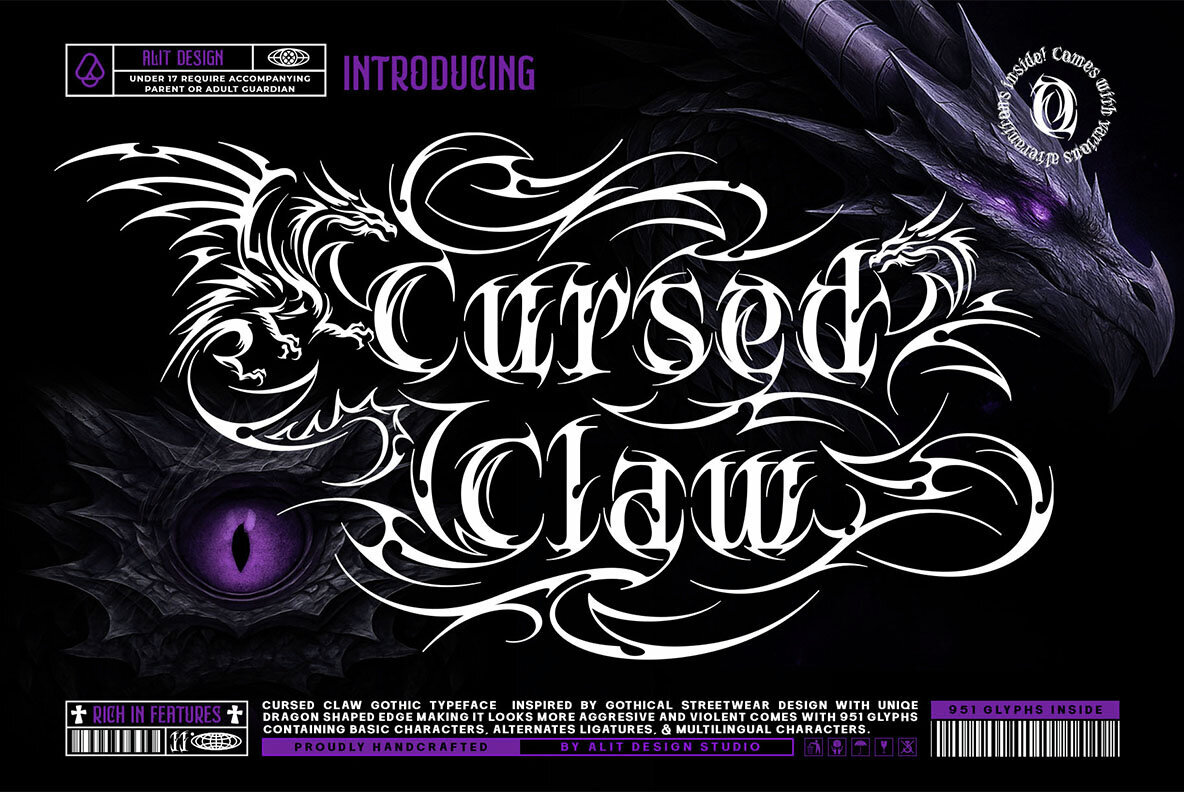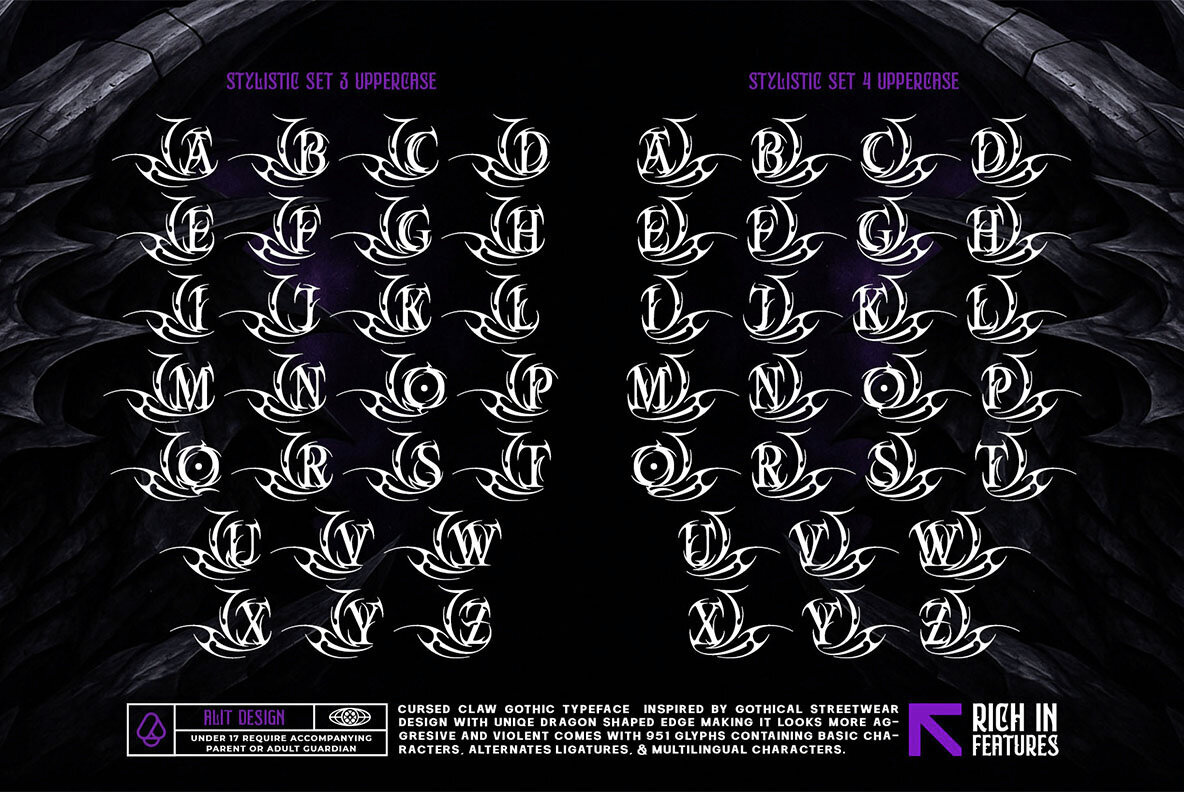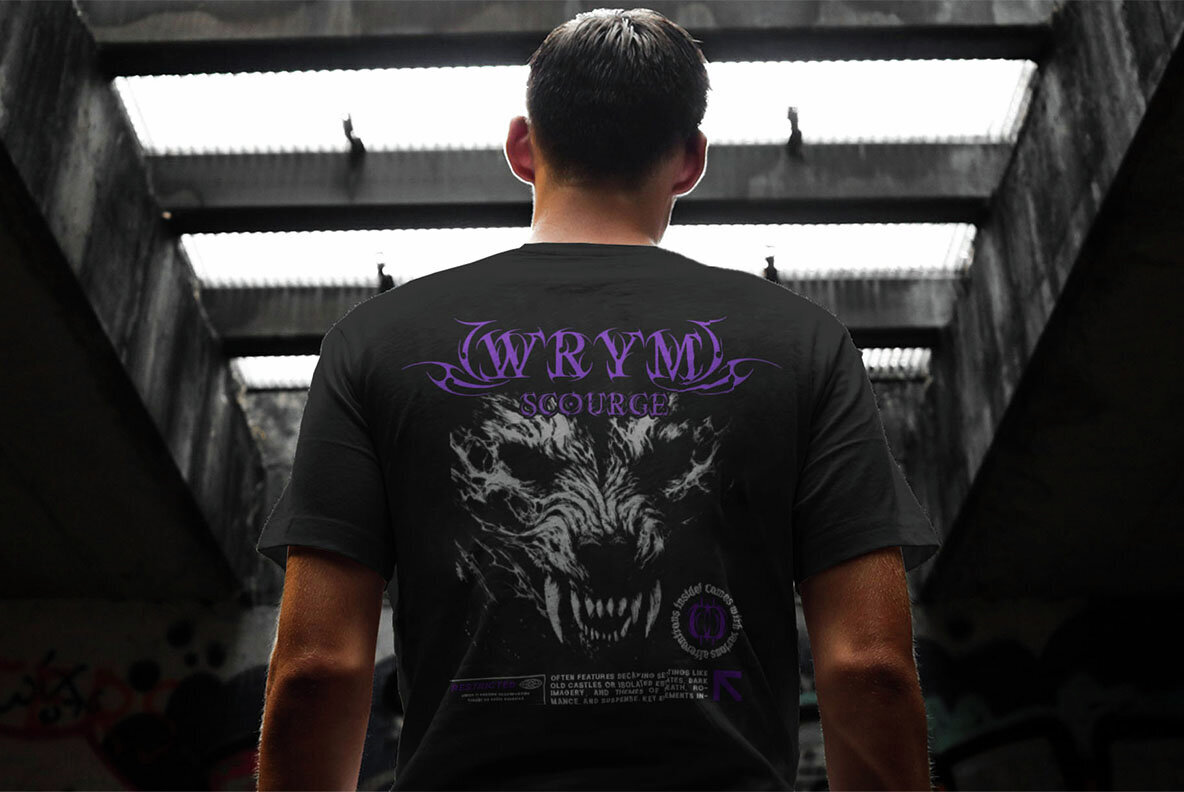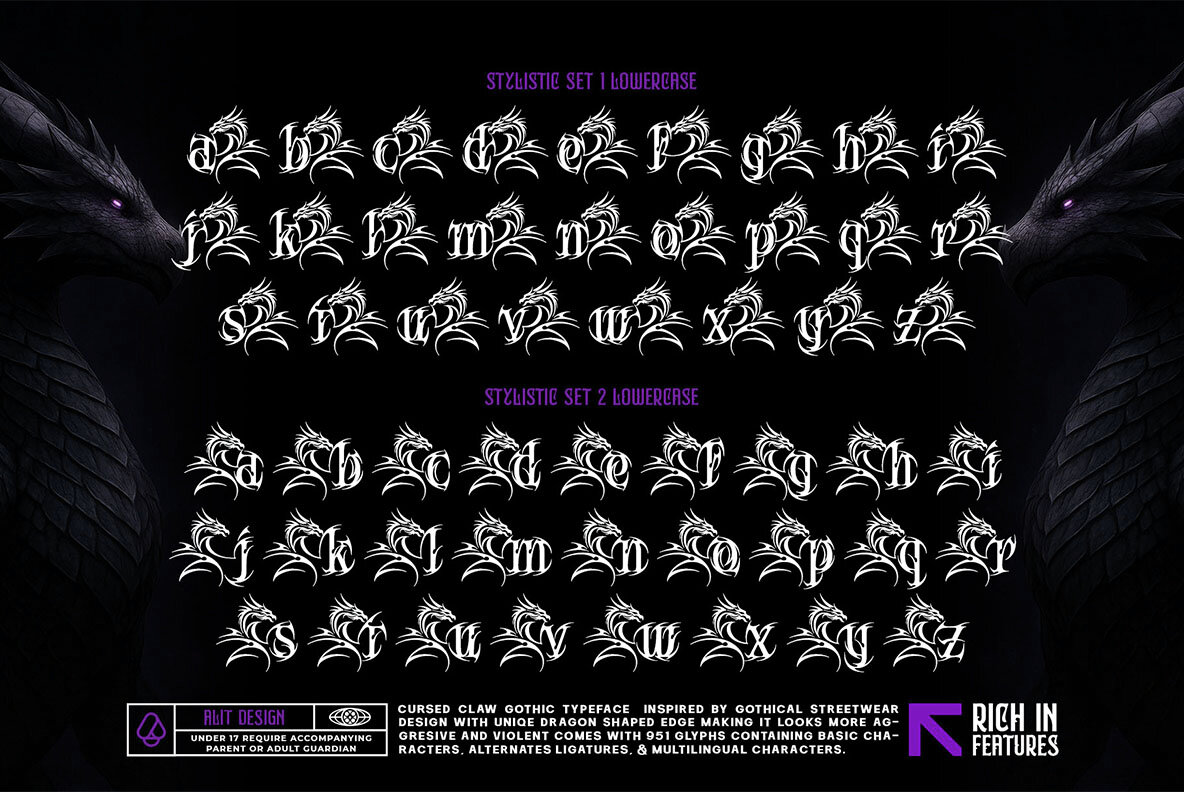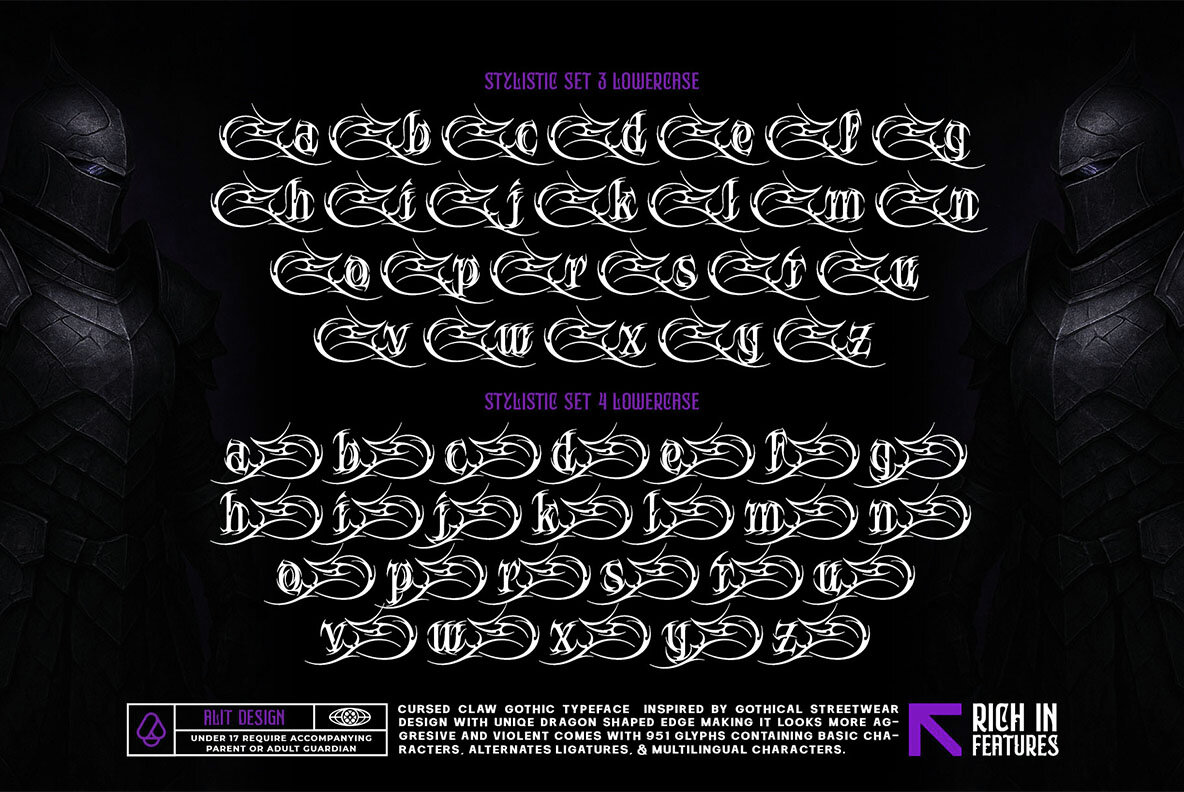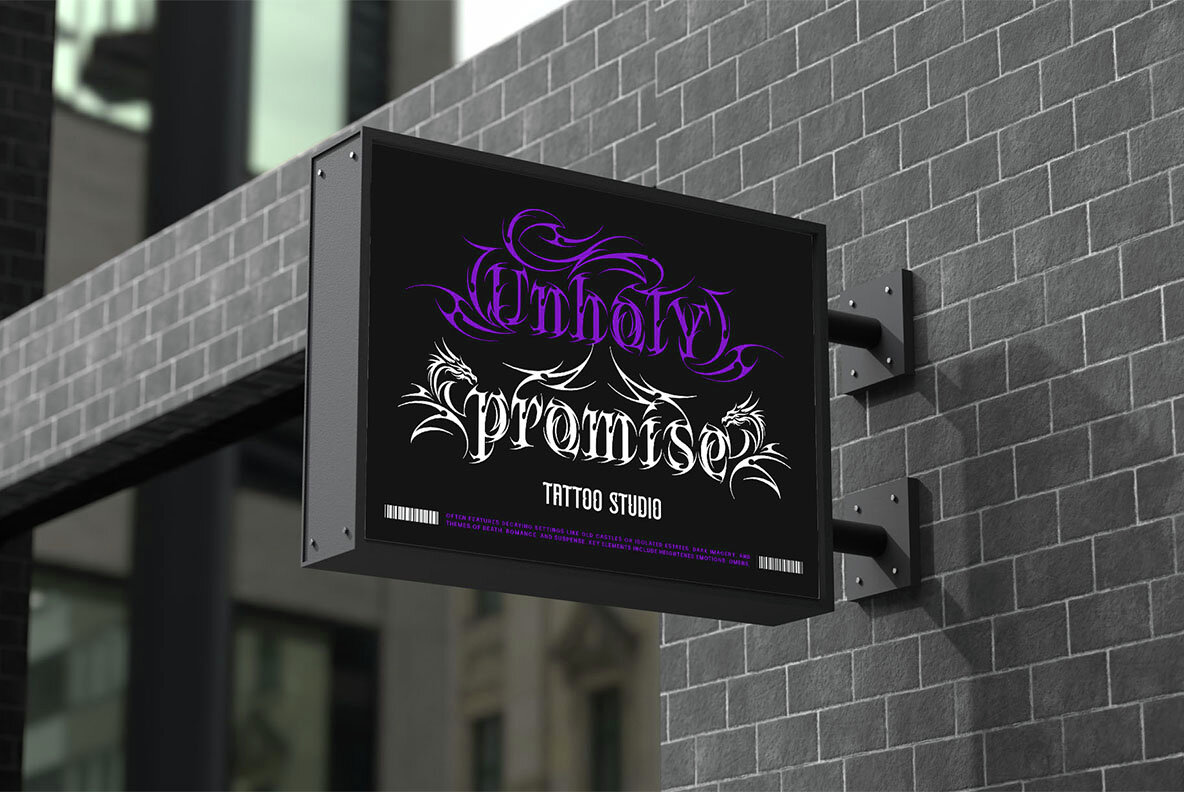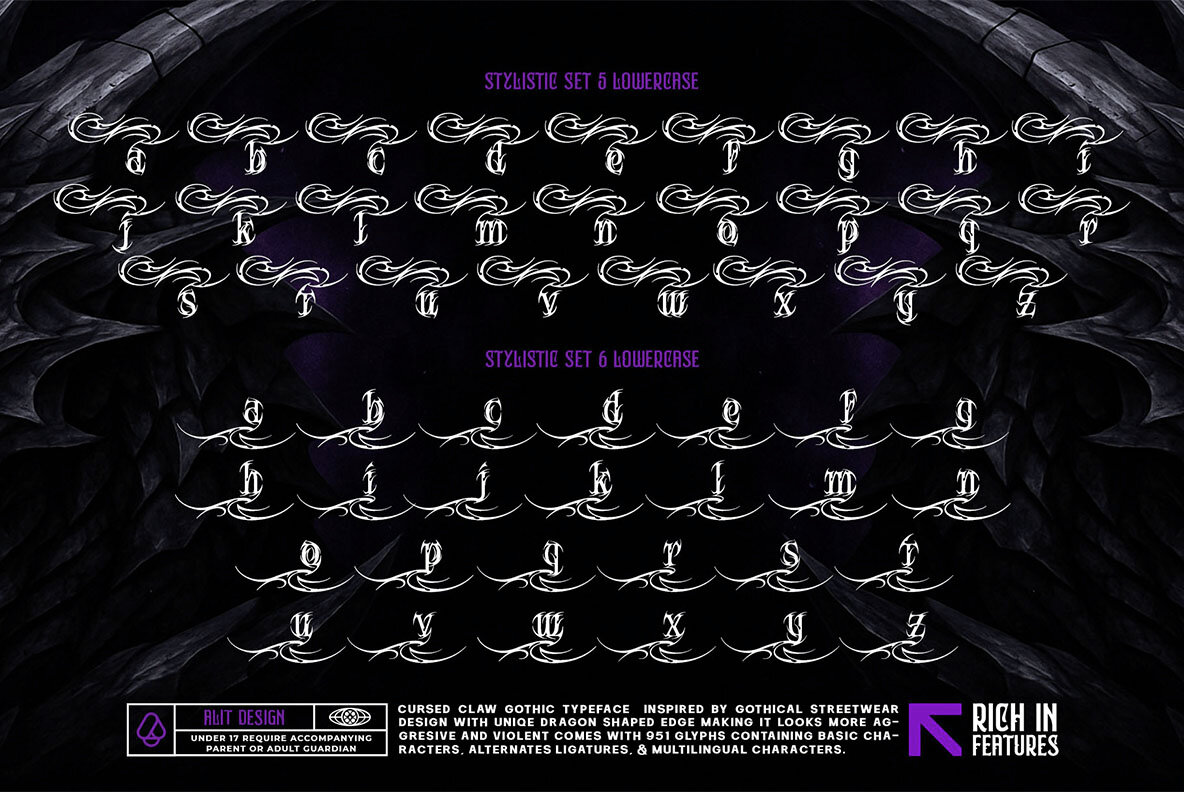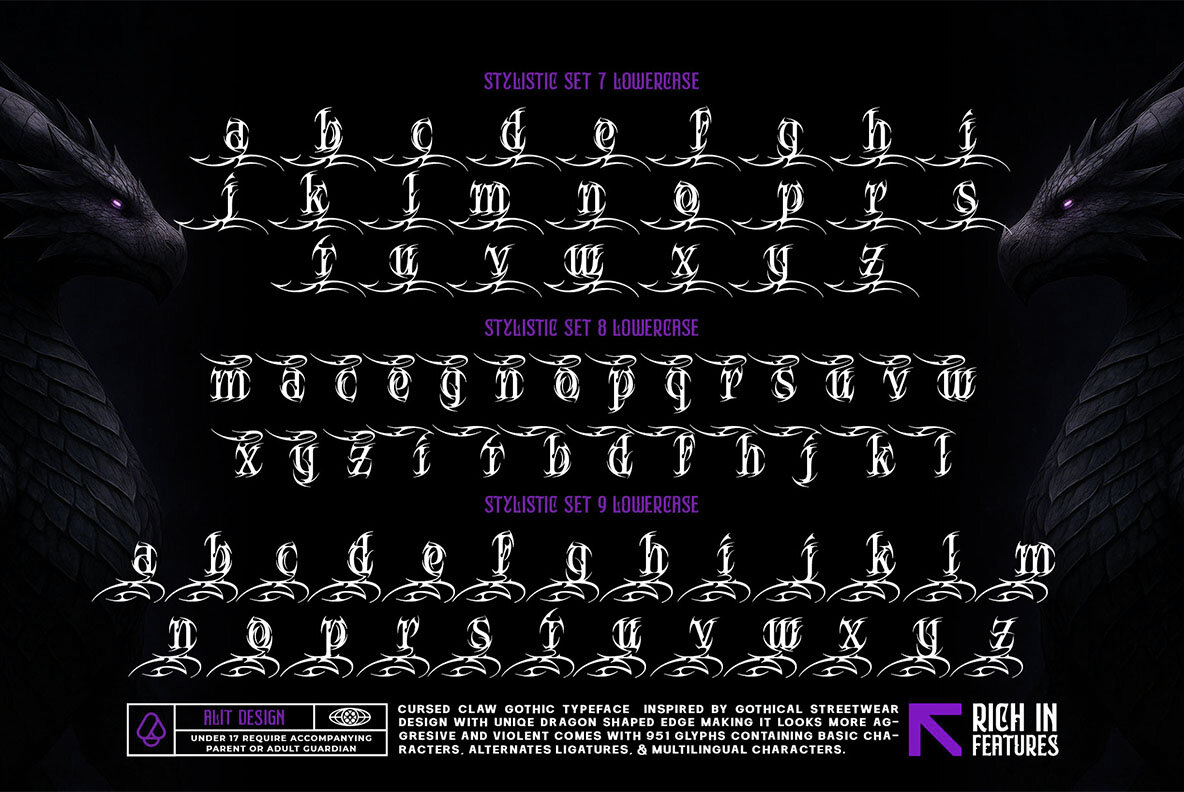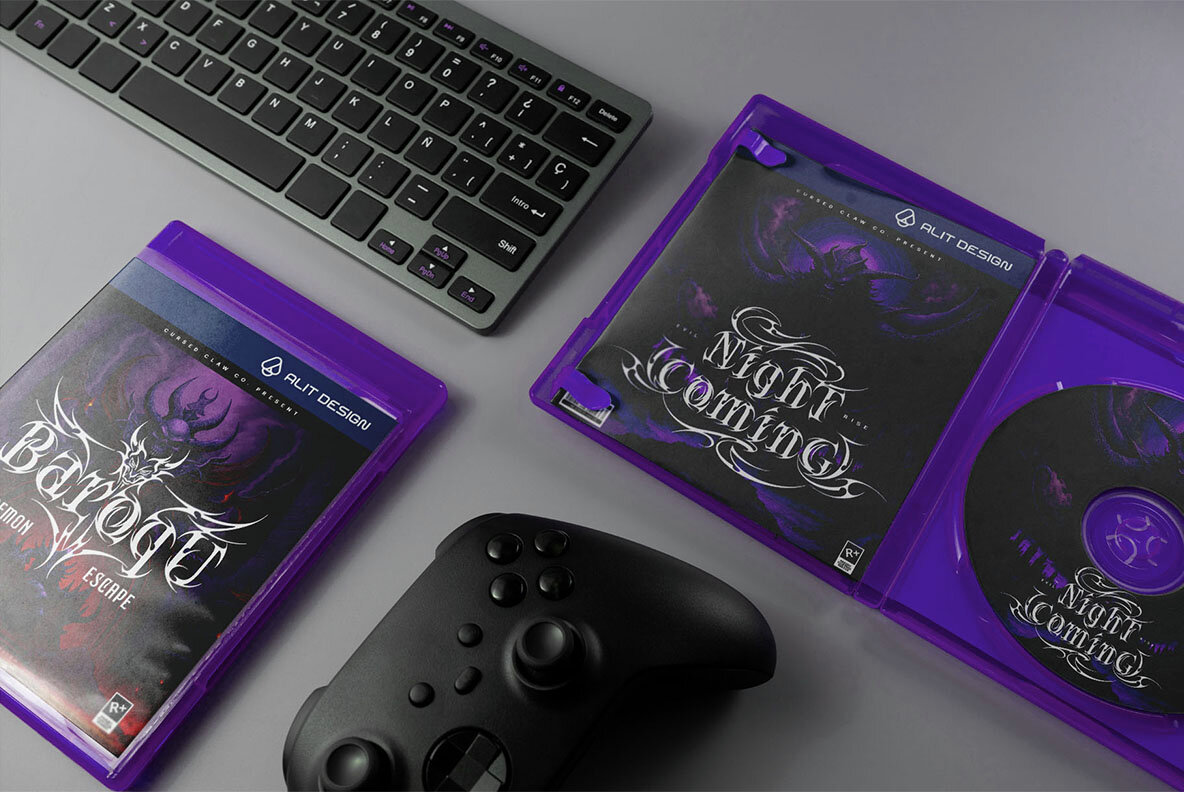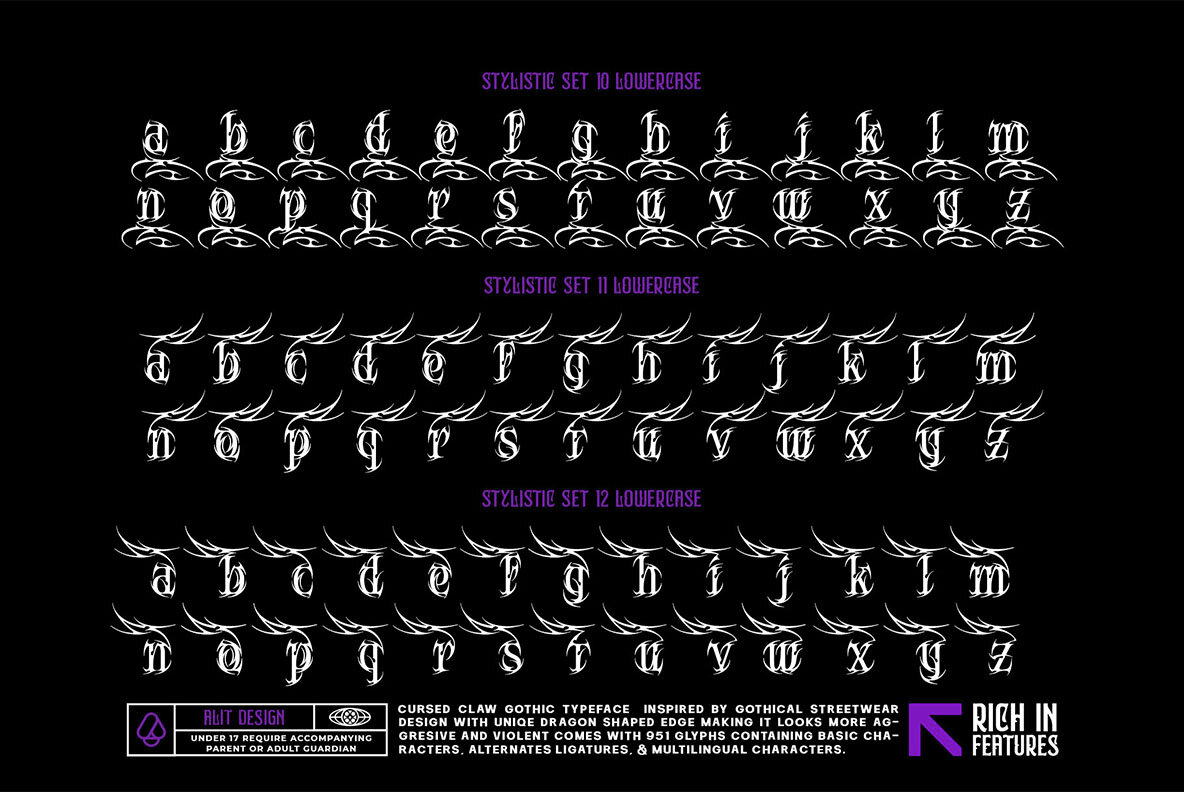
Cursed Claw Font
Cursed Claw Regular
Cursed Claw stands at the intersection of ancient symbolism and contemporary visual culture. This typeface makes a striking impression with its tribal-inspired gothic edge, channeling the intensity of medieval blackletter tradition fused with modern underground influences. Graphic designers seeking bold, character-driven headlines for death metal albums, fantasy branding, or luxury streetwear will find Cursed Claw both evocative and precise. Each glyph is rendered with dramatic, dragon-inspired contours, lending the face a sense of energy and sharp articulation. With 951 glyphs and a variety of stylistic sets, designers can move seamlessly between ornate, meticulously detailed forms and cleaner, straightforward characters. These alternates provide flexibility for both decorative and highly legible applications, supporting a wide array of creative directions.Cursed Claw: Aggressive Tribal Gothic Typeface for Streetwear and Fantasy Branding
If your project requires commanding presence anchored in strong typographic tradition yet tuned to modern tastes, Cursed Claw is engineered to deliver visual clarity and drama in equal measure.